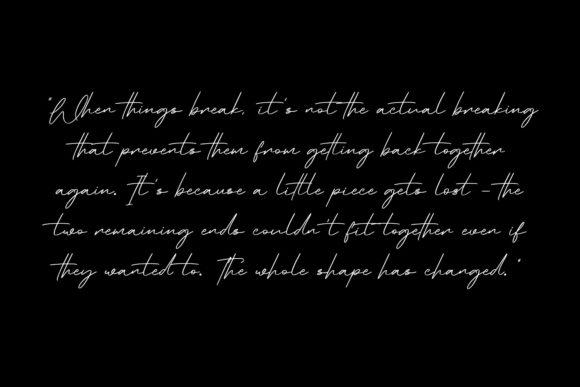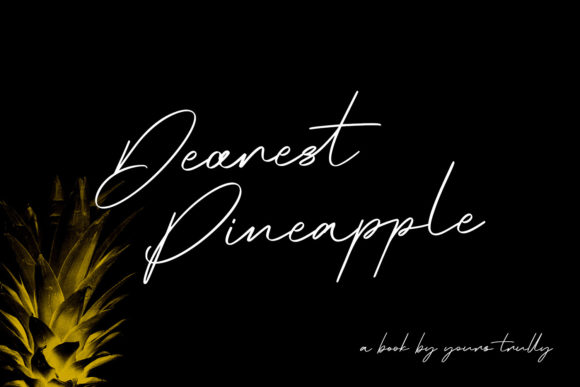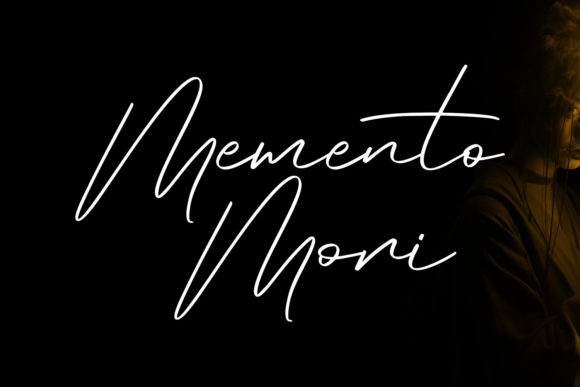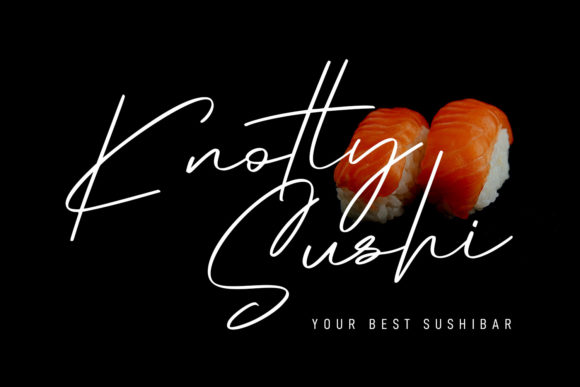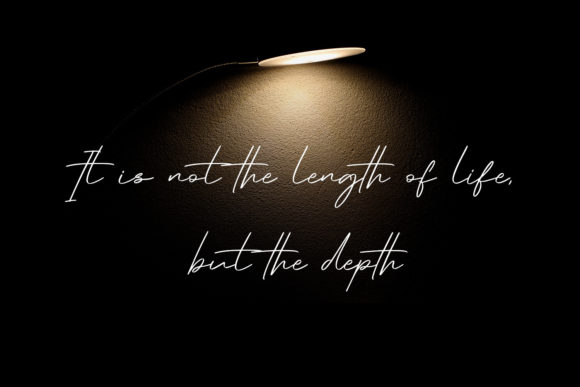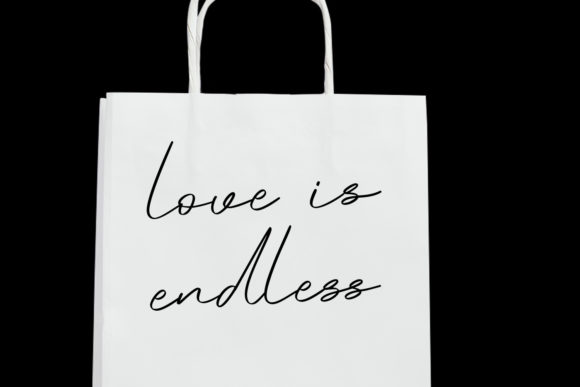
Copper Harbor Script Font: Elevate Your Designs with Elegance and Sophistication
In the realm of typography, few fonts manage to capture the essence of elegance and sophistication as effectively as the Copper Harbor Script Font. This stylish handwritten font has emerged as a favorite among designers and crafters alike, and for good reason. Its unique blend of flair and finesse makes it the perfect choice for creating eye-catching logos, branding materials, and quotes that demand attention.
The Distinctive Charm of Copper Harbor Script
What sets Copper Harbor Script apart from other fonts is its inherently artistic and personal feel. Every letter in this font has been meticulously crafted to exude a sense of individuality and charm. The fluid strokes and subtle variations in line width give the font a dynamic, hand-written appearance that is both captivating and authentic. Whether you’re working on a logo, a branding project, or a decorative quote, Copper Harbor Script brings a level of sophistication and elegance that can elevate your design to new heights.
Copper Harbor Script’s versatility is one of its most compelling attributes. This font is not limited to a specific type of project; rather, it can be seamlessly integrated into a wide range of design applications. Here are just a few ways you can utilize Copper Harbor Script:
- Logos and Branding: Create a lasting impression with a logo that embodies the essence of your brand. Copper Harbor Script’s elegant and stylish appearance makes it an excellent choice for businesses looking to establish a sophisticated identity.
- Quotes and Posters: Add a touch of class to your inspirational quotes, posters, and flyers. The font’s readability and aesthetic appeal ensure that your message will resonate with your audience.
- Stationery and Invitations: Elevate your stationery, invitations, and greeting cards with a font that exudes warmth and personality. Copper Harbor Script can help make your correspondence stand out in a world dominated by digital communication.
- Web Design: Enhance the visual appeal of your website with Copper Harbor Script. Its elegant appearance can add a professional touch to headings, titles, and other design elements.
Why Choose Copper Harbor Script?
With so many fonts available to designers today, what makes Copper Harbor Script a preferred choice? Here are a few reasons why designers and crafters are gravitating towards this beautiful font:
- Unique and Beautiful Touch: Each letter in Copper Harbor Script has been designed with a unique and beautiful touch, ensuring that your designs have a personal and distinctive feel.
- Ease of Use: Despite its sophisticated appearance, Copper Harbor Script is remarkably easy to use. Designers can quickly incorporate it into their projects without requiring extensive typography knowledge.
- High Versatility: As mentioned earlier, Copper Harbor Script’s versatility makes it suitable for a wide range of design projects, from digital applications to print materials.
- Timeless Appeal: Unlike trends that come and go, Copper Harbor Script boasts a timeless quality that ensures your designs will remain stylish and relevant for years to come.
Copper Harbor Script Font is more than just a stylish handwritten font; it’s a tool that can transform your designs, adding a level of elegance and sophistication that captures attention and resonates with audiences. Whether you’re a professional designer or a crafter looking to add a personal touch to your projects, Copper Harbor Script is an excellent choice. Its unique charm, versatility, and timeless appeal make it a valuable addition to any designer’s toolkit. So, why settle for ordinary when you can create something extraordinary with Copper Harbor Script Font?